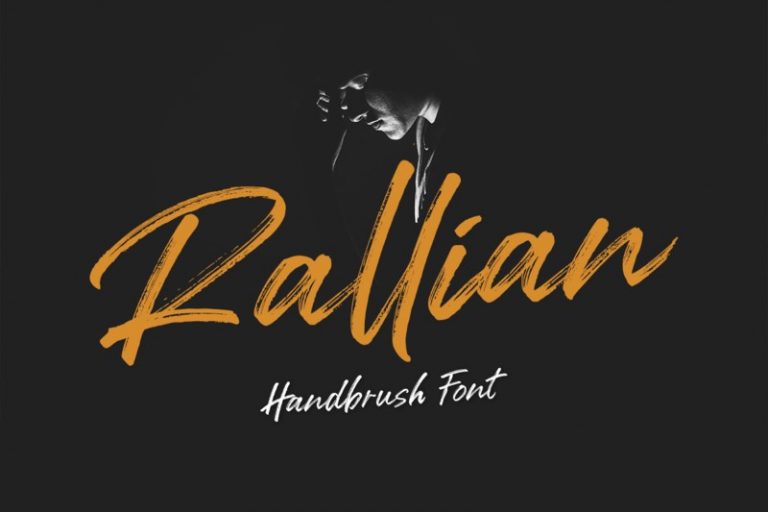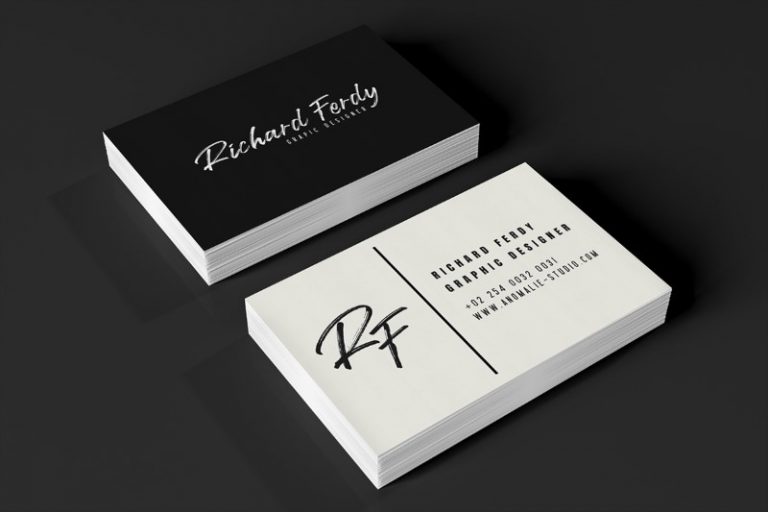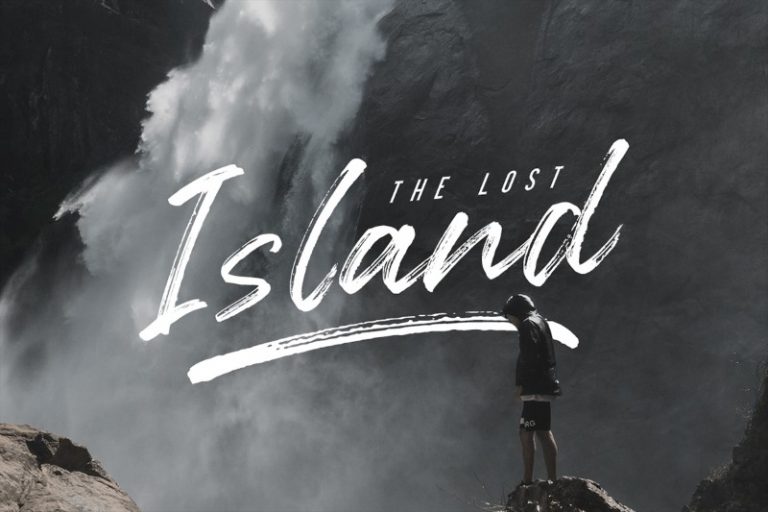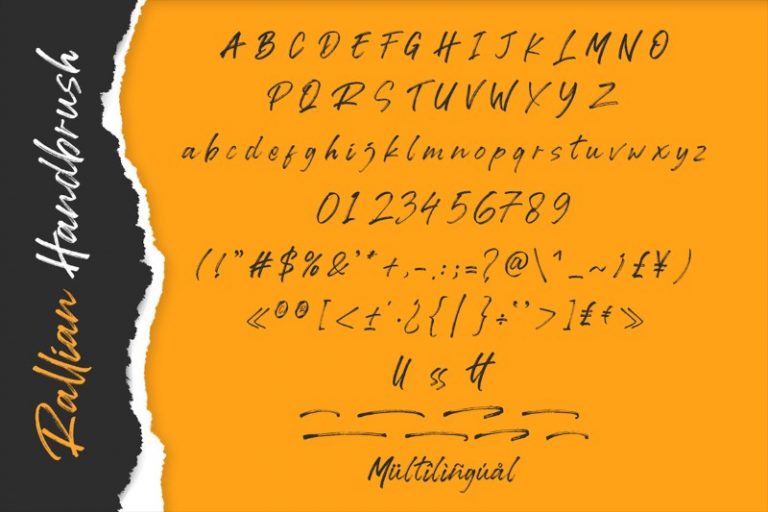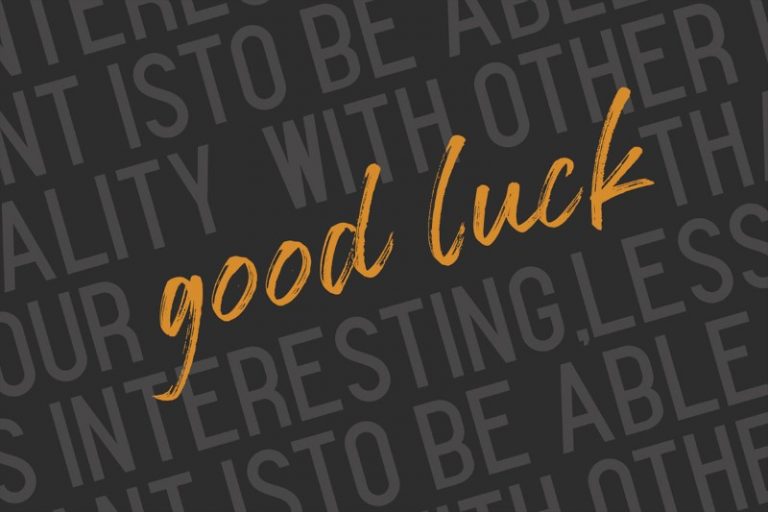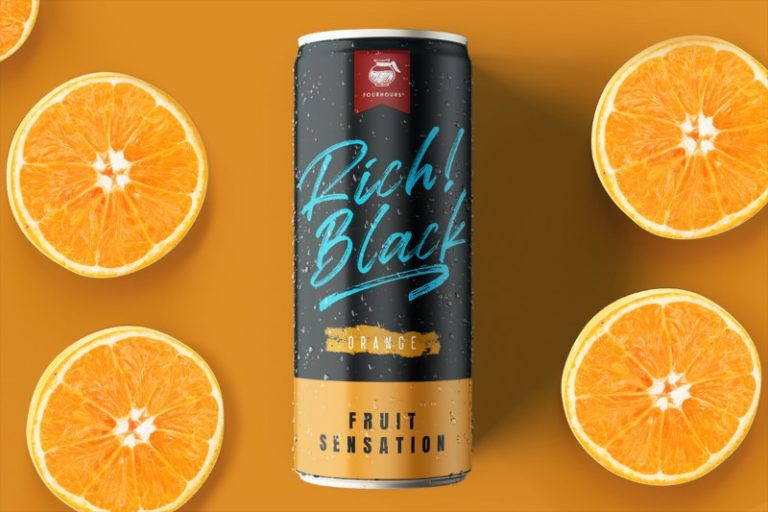
Rallian
Introducing Rallian Font. Rallian is a brush font . Made with naturally brush. The texture from the brush font will make your design more beautiful and powerful. This font is suitable for any design like branding, quotes, t-shirt printing and etc. I hope you enjoy it !! Thanks for visiting and downloading my font!